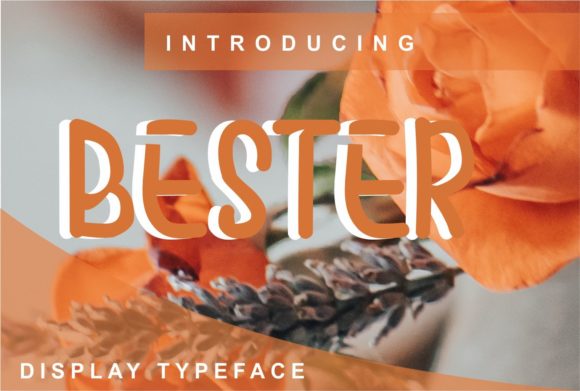
The Bester Font: A Cool, Trendy, and Adaptable Display Font
In this article, we’ll dive into the world of Bester, a cool, trendy, and adaptable display font that’s sure to elevate your design projects. Whether you’re a designer, crafter, or creative hobbyist, you’ll learn how to make the most of this amazing font and explore its endless possibilities.
An Honest Review of Bester Font
What I Love About Bester Font
- ✨ Unique and Modern Design: Bester font boasts a distinctive and contemporary design that will make your projects stand out from the crowd.
- ✅ Highly Adaptable: This font is incredibly versatile and can be used for a wide range of projects, from branding and advertising to packaging and digital media.
- 💡 Excellent for Display Text: Bester font is optimized for display text, making it perfect for headlines, titles, and other attention-grabbing elements.
While Bester font is an excellent choice for many projects, there are a few things to keep in mind:
- 🤔 Limited Legibility at Small Sizes: As with many display fonts, Bester may not be the best choice for body text or small font sizes, as it can become difficult to read.
- ⚠️ Glyph Support: While Bester font comes with a range of glyphs and OpenType features, some users may find that it lacks certain special characters or ligatures.
The Backstory of Bester Font
The Bester font was designed by a team of creatives who aimed to create a modern and versatile display font. Inspired by the latest design trends and typography styles, Bester font is the result of meticulous craftsmanship and attention to detail.
| Font Name | Bester Font |
| Author | Letteria_studio |
Q: What is Bester font best used for?
A: Bester font is ideal for display text, headlines, titles, and other attention-grabbing elements in a wide range of design projects.
Q: Is Bester font suitable for body text?
A: While Bester font can be used for body text, it may not be the best choice due to its limited legibility at small sizes.
Q: Does Bester font come with OpenType features?
A: Yes, Bester font comes with a range of OpenType features, including ligatures and stylistic alternates.
The Bester font is a powerful tool for designers, crafters, and creative hobbyists. With its unique and modern design, adaptability, and excellent display text capabilities, it’s sure to elevate your projects and inspire your creativity. So, go ahead and experiment with Bester font – the only limit is your imagination! 🌟